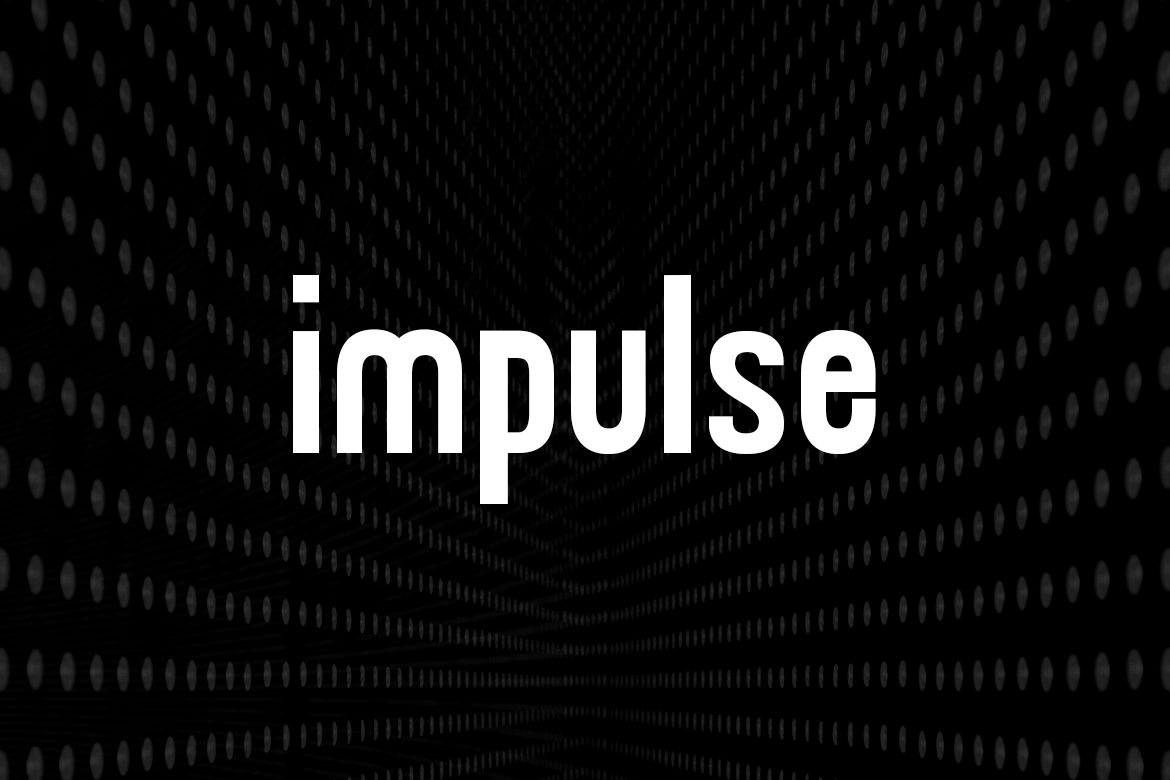
IMPULSE - Display /Headline Typeface
IMPULSE is a modern typeface for headlines, big text, branding, logotypes & display usage. This typeface is also perfect for creating great logos, promotional content and marketing graphics that lift the creative aspects of the design. Please see the examples shown above to get an idea about the capability of this typeface.
IMPULSE comes with 4 weights (Light, Regular, Bold & Heavy) and Italic versions of each weights. The pack contains Desktop Fonts (OTF, TTF) as well as Web Fonts (EOT, SVG, TTF, WOFF, WOFF2) as options.